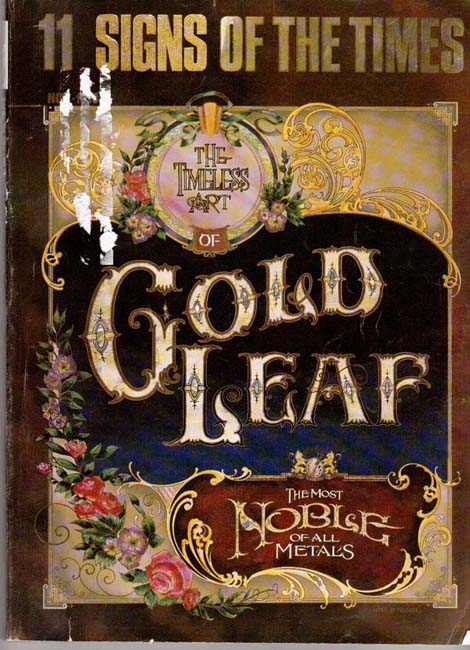
I've kept this magazine since 11-90 and thought I would share the cover and some
insights from various individuals. Some of you will already recognize the style
of Noel Weber for the cover. Noel spent 200+ hours on design and execution of
the cover piece. 25"x33". Lyle Fisk, Fisk Signs is the second picture.
After reading through different particapants there seems to be a re-occuring theme about gold; A. Gold is too expensive B. It's a dying art. I'll read you some of the comments now.
AL GRAND - A. Grand Sign Co.
"In the old days, back in the 50's and 60's, you didn't have to sell gold; it sold itself,"
Grand recalls." Of course, gold was cheap. If the price was like it used to be, everybody
would have it.
"I would use 15 to 20 packs of gold a year," Grand says of his heyday. "Now I can't
use a pack a year.
...Al was 70 when her wrote this and went on to mention Mark Oatis and Kent Smith
as comtemporary gilders.
CHUCK KRAFT - The Signman
Chuck Kraft sees the high cost of gld as an advantage. You can call it snow appeal, but Kraft sees that the inability of some clients to afford an entire sign of goldleaf makes them happy
to have a sign with even a touch of gold. Generally, we want wht we cannot afford, Kraft
philosophizes.
SEPP LEAF
"Don't look for the price of goldleaf to down in the near future. Then again, it might."
NOEL WEBER
"My family was very patient with me. When you do a project like this (cover) you pretty
well isolate yourself from everybody."
Well, what do you think?
Spent 3 days a couple of weeks ago with Noel and John Studden for a gold on glass class. It was a real pleasure to be in the company of two masters of gold and a real treat to see some Noel's work first hand. Thanks for the post Mark.
Eventhough the name seems French, I am allmost for 100% sure the 'draaiorgel' is made in the Netherlands.
Goldleaf? What is that? Is that a new kind of vinyl or something?
My paint supply shop (Artmart) has a rack of old signcraft magazines for sale.
The business has morphed with the sign industry to become mainly a supplier of vinyl and digital print substrates. But they still keep a rack of sign paints and a cabinet of brushes and other sign equipment. Among them is a wire display rack with lots of old copies of signcraft, some of them going back maybe 15 years. The covers are all fading with exposure to the light and I'm sure the exact same mags have been there ever since I started buying paint from them.
I asked one of the guys one day if they ever sell any and he said someone occasionally buys one. I would have guessed they haven't sold more than a handful in the last 10 years.
How true it is. Signs of the Times doen't even closely resemble today what what was
part of the their past. The mag has gone completlely to the digital gurus.
I think Signcraft has kept it's original intent of the craft.
Got a call today for someone wanting a signpainter. How long it has been since
such a request came by my shop.